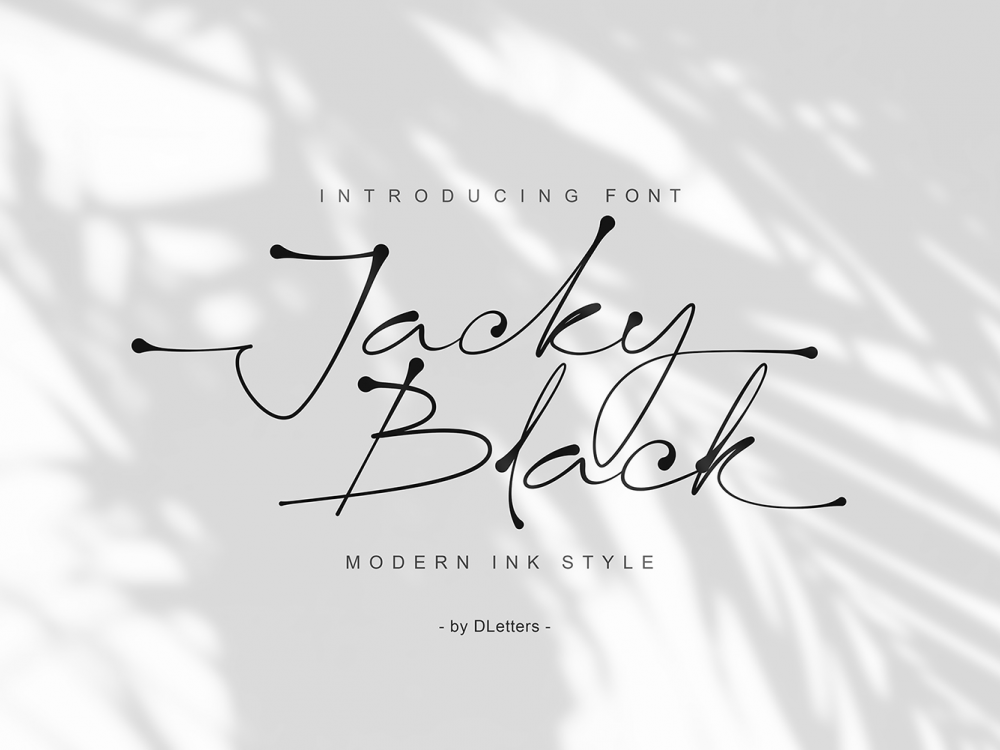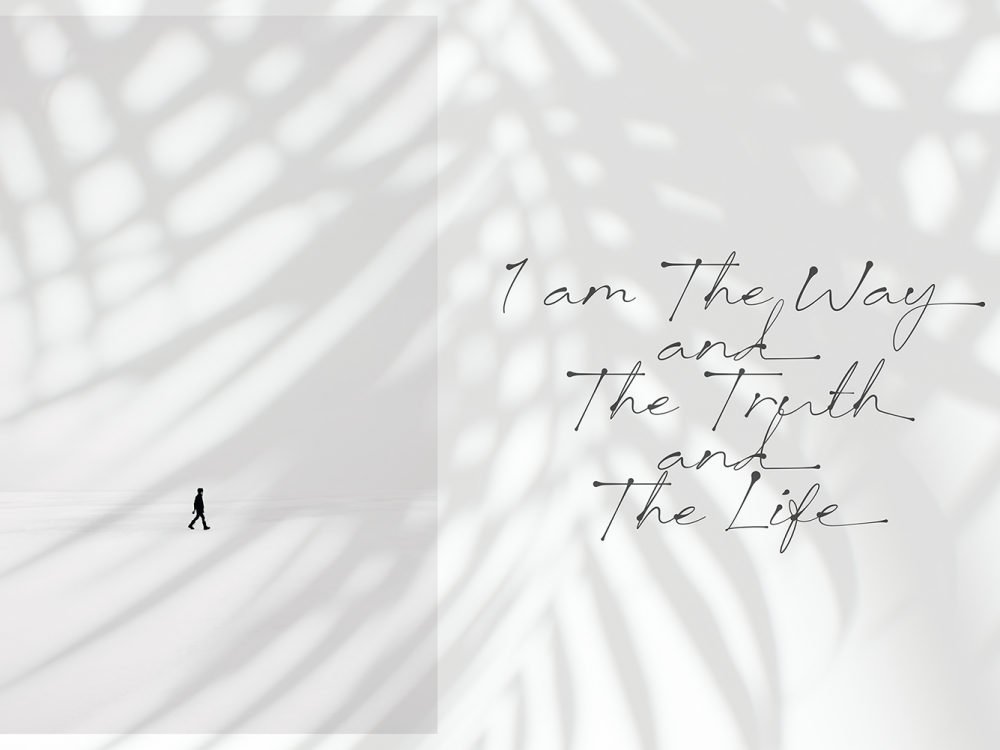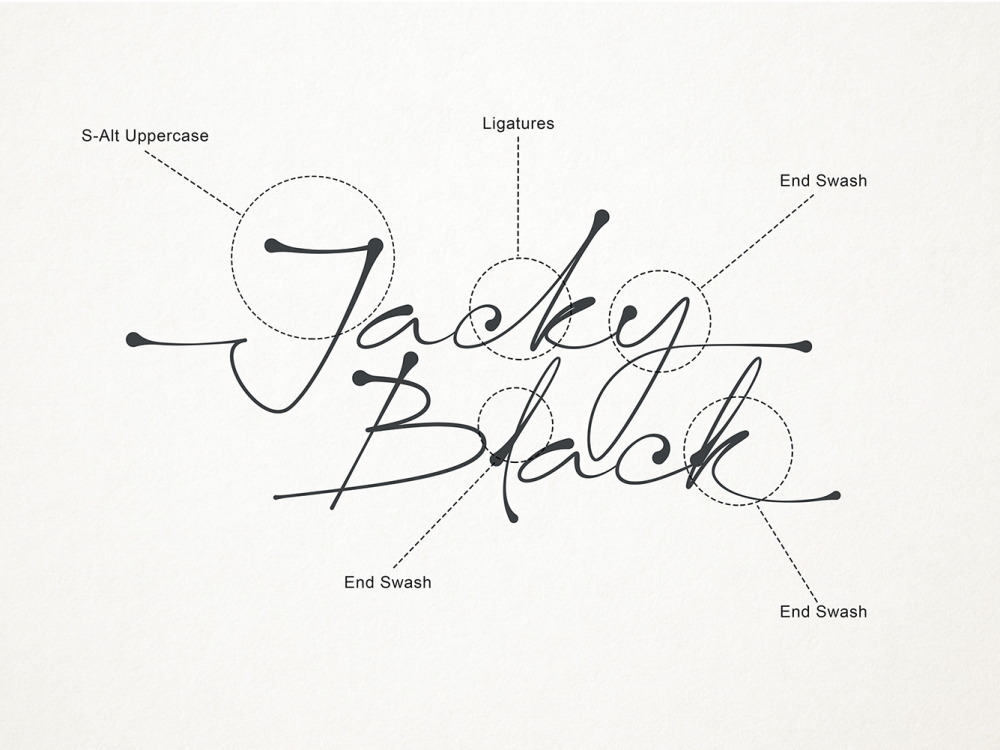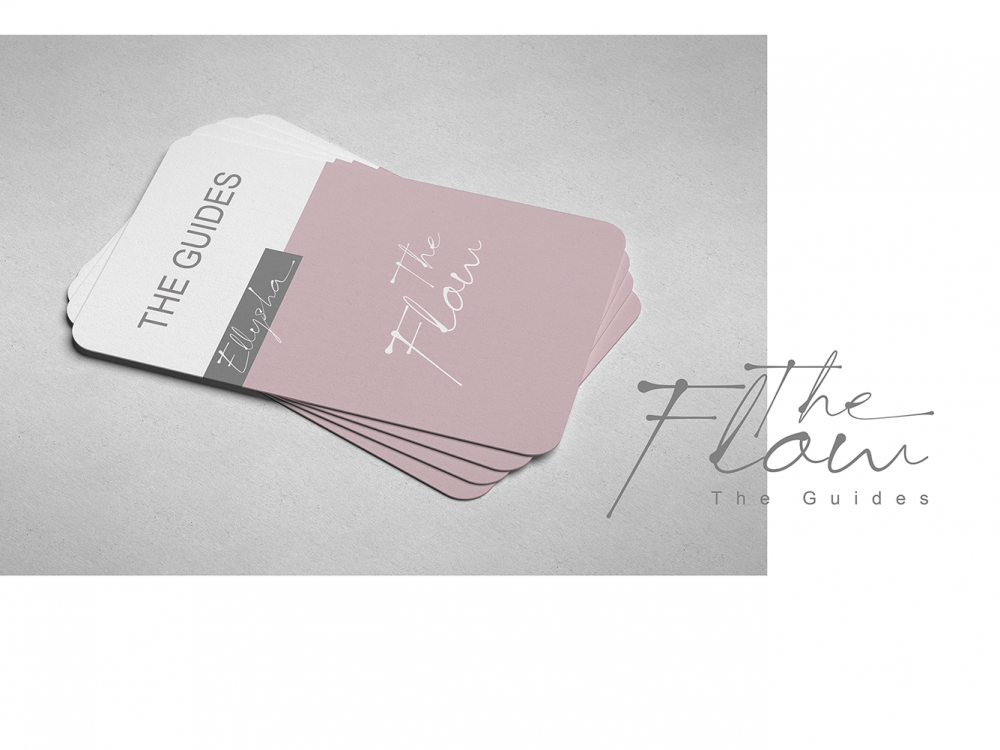
Jacky Black Free Font
Jacky Black Free Font is an interesting script calligraphic font looks elegant and exclusive that is very suitable for creating various design projects in a modern style. You can use this font to create memorable posters, wedding invitations, cards, branding, flyers, and more. Improve the quality and increase the popularity of your design projects using this font. If you like it don’t forget to check out the full version.